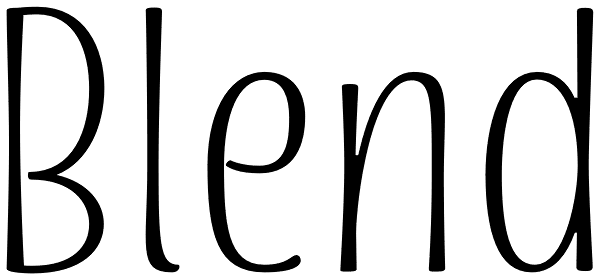
Blend
Have you ever tasted a type blend? In Coffee universe, a blend is a combination of different kinds of beans to get a more balanced taste. Typesenses brings this concept to the world of typefaces and creates its new hand-drawn font family: Blend...